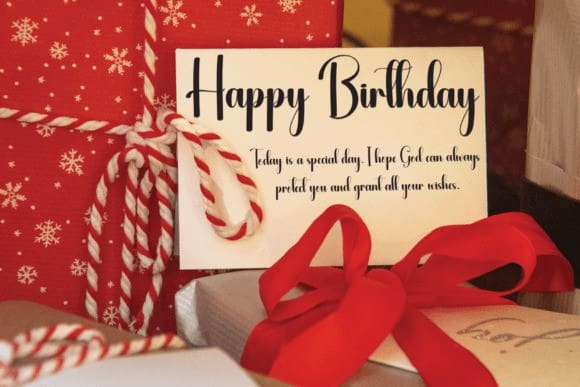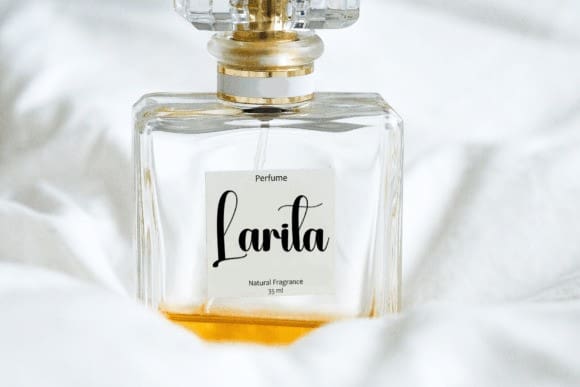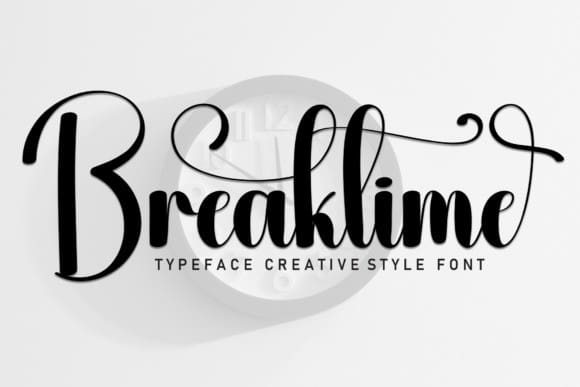
Breaktime Script Font
Breaktime Script Font is a sweet and friendly handwritten font. Fresh and casual, this font is ideal for writing wedding invitations, cards, or any other design that might need a lovely touch.